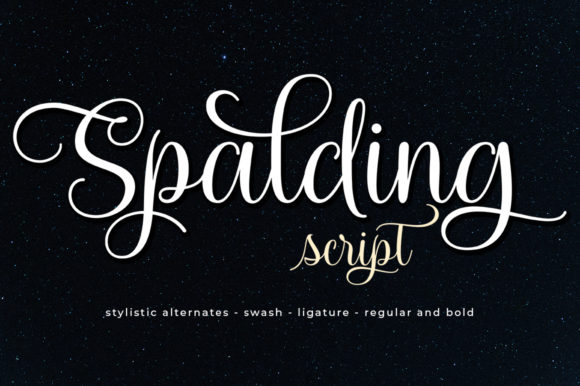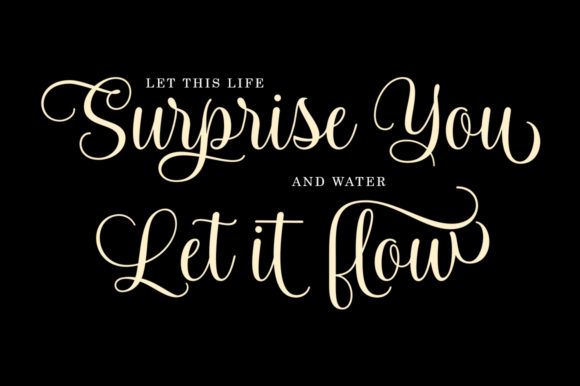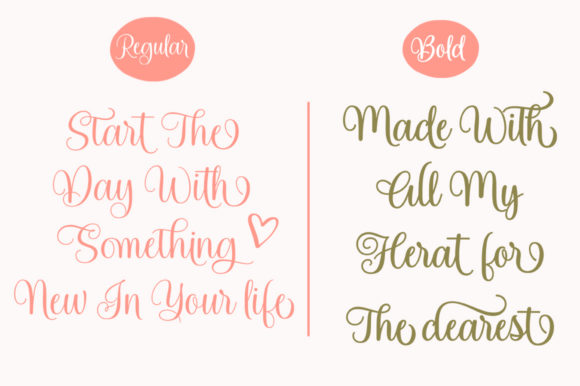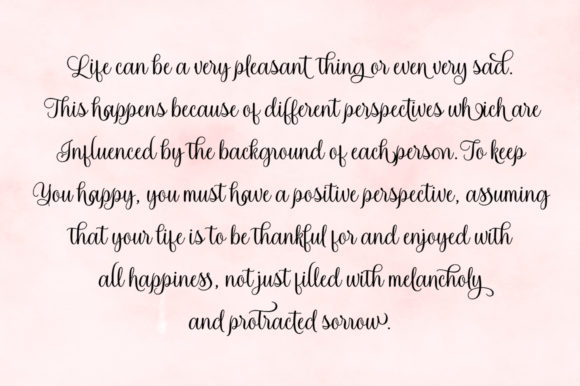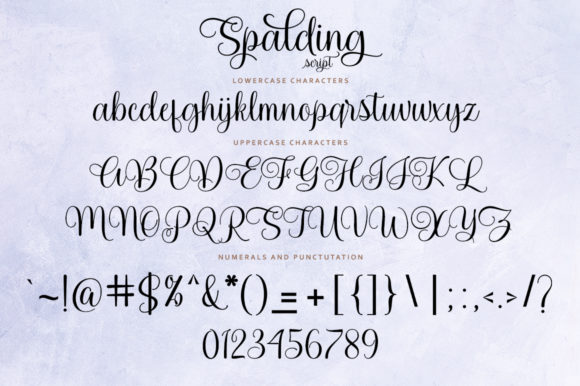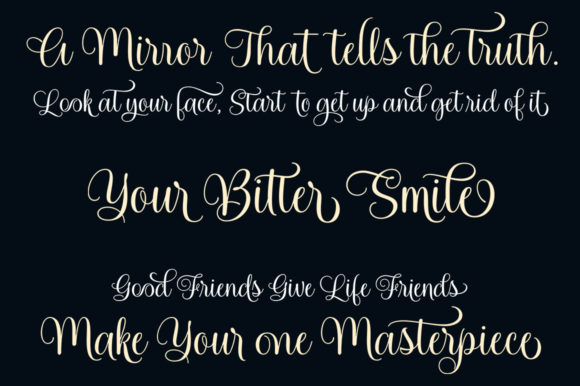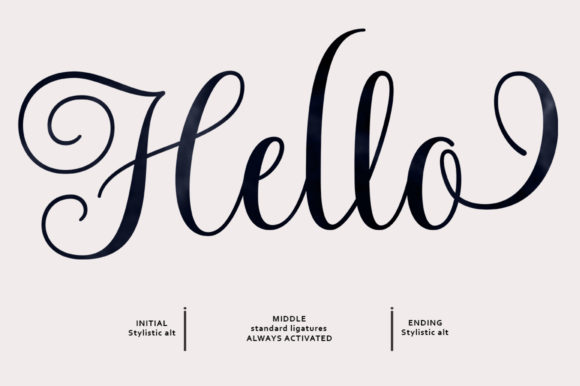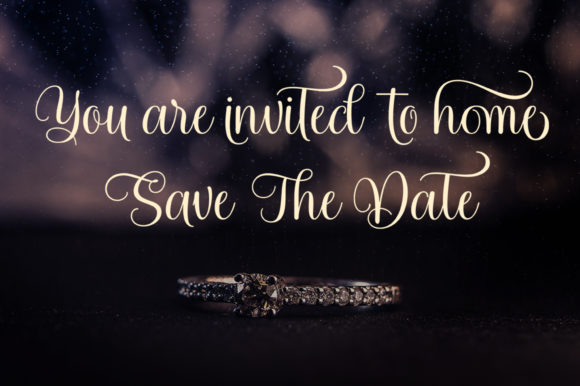
Spalding Font
About Spalding Font
Spalding clebrates classic, romanticist calligraphy with each of its gorgeous swashes. Get inspired by its playfully unique feel!